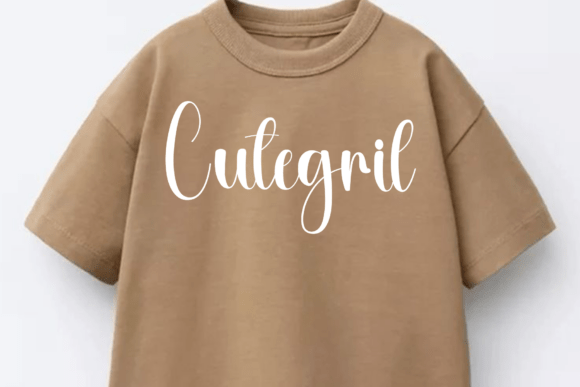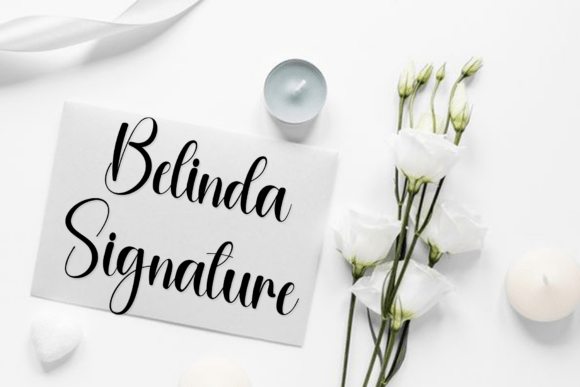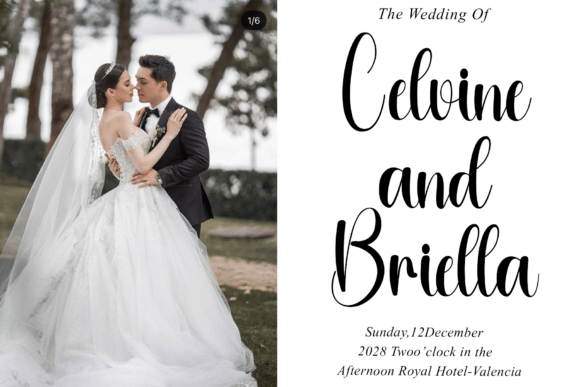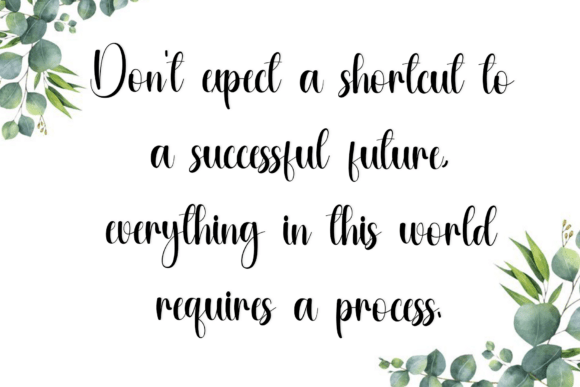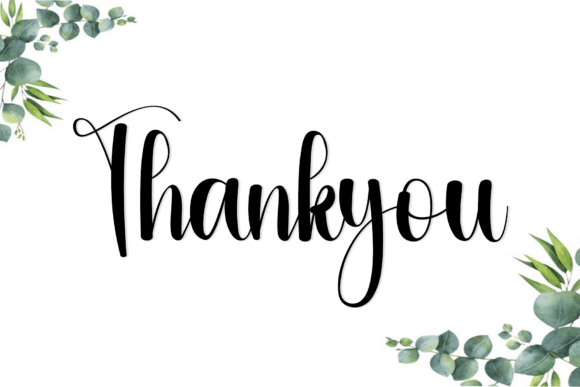
Introduction to Saturdayy Font
There’s something special about that moment when a creative project comes together – the rush of excitement, the sense of accomplishment, and the satisfaction of bringing your vision to life. For designers, it’s a feeling that’s hard to beat. Whether you’re working on a travel photography campaign or crafting a brand identity for an outdoor gear company, the right font can make all the difference.
Enter Saturdayy Font, a stunning addition to the modern handwritten collection that’s sure to elevate your designs to new heights. With its clean, approachable style and crisp, elegant aesthetic, Saturdayy Font is the perfect choice for designers looking to add a touch of sophistication to their creative projects. From high-quality branding to web design, Saturdayy Font is a versatile and valuable resource that’s sure to become a go-to favorite.
Let’s take a closer look at what makes Saturdayy Font so special, and how you can harness its unique charm to take your designs to the next level.
Key Features of Saturdayy Font
- High-quality design resource for creative projects, offering a unique and stylish look.
- Features a transparent background, allowing for easy integration into various design elements.
- Includes a range of glyphs and characters, making it suitable for various languages and creative applications.
- Designed at a high resolution of 300 DPI, ensuring crisp and clear display on various devices.
- Perfect for designers working on digital and print projects, including logos, graphics, and typography-based designs.
Honest Review: Saturdayy Font
As a designer, I’m always on the lookout for high-quality design resources to enhance my creative projects. Recently, I came across the Saturdayy Font, and I must say, it’s been a great addition to my design arsenal.
Here are some aspects that work well:
- ✨ Unique and modern design aesthetic: The Saturdayy Font has a fresh and contemporary look that can add a touch of sophistication to any design project.
- ✨ High-quality vector format: The font is available in vector format, making it easy to scale and manipulate without losing any quality.
- ✨ Transparent background: This feature is a bonus for designers who need to use the font on a transparent background.
- ⚠️ Limited language support: The font may not support all languages, which could be a limitation for designers working on multilingual projects.
- ⚠️ No bold or italic versions: The font only comes in regular weight, which may not be ideal for designs that require bold or italic text.
Overall, I’m impressed with the Saturdayy Font, and I would recommend it to designers looking for a modern and high-quality font for their creative projects.
Getting the Most Out of Saturdayy Font
For best results, use Saturdayy Font in conjunction with other high-quality design elements. Experiment with different font sizes, colors, and arrangements to find the perfect balance for your creative project.
Saturdayy Font is perfect for:
- Brand identity and logo design
- Photography and art projects
Yes, Saturdayy Font has a transparent background, making it easy to use in a variety of design applications. Our font is designed to be highly legible and versatile, and the transparent background allows for seamless integration with other design elements.